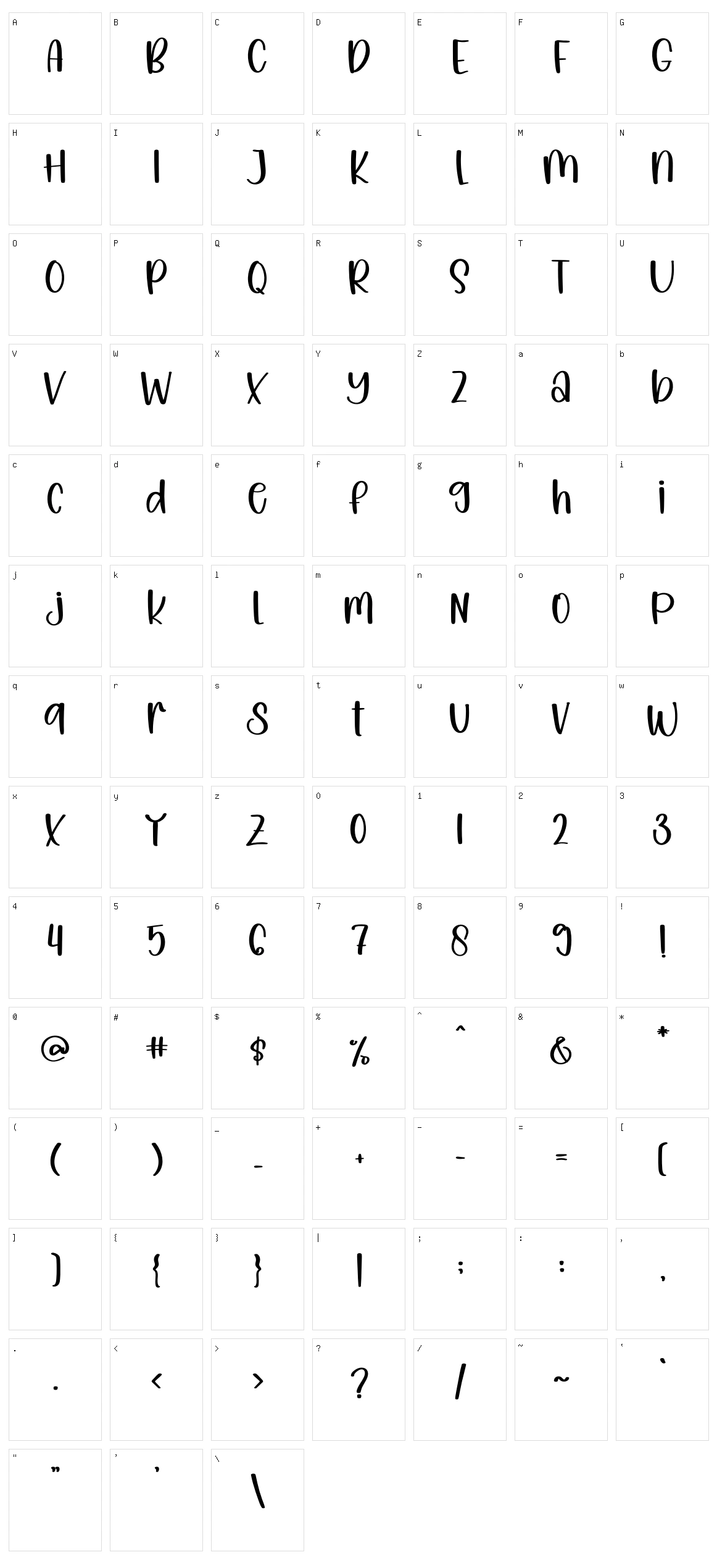
The free font Valentine Vacation is carefully designed by Inermedia Studio, showcasing a thoughtful balance of creativity and usability and falls under the Script font style. When you download the ZIP file, it contains only 63.09 KB of font files, making it lightweight and quick to download. Please review the license details below to understand permitted usage and distribution rights. If license information is not available, we recommend using this font for personal projects only or contacting the author directly for commercial usage permissions.